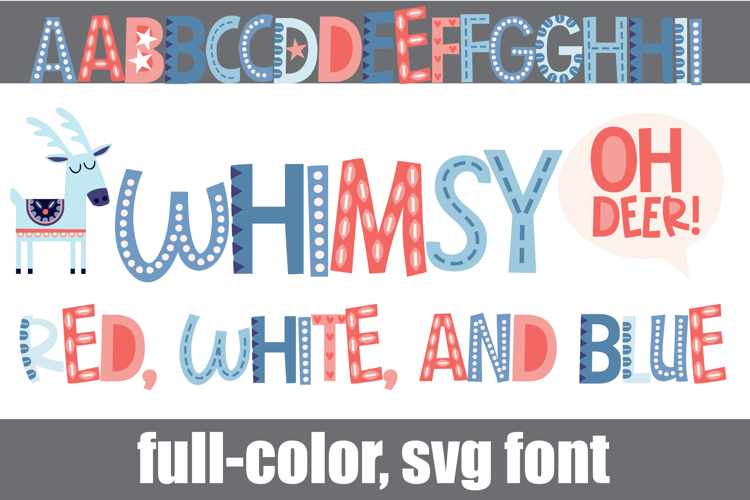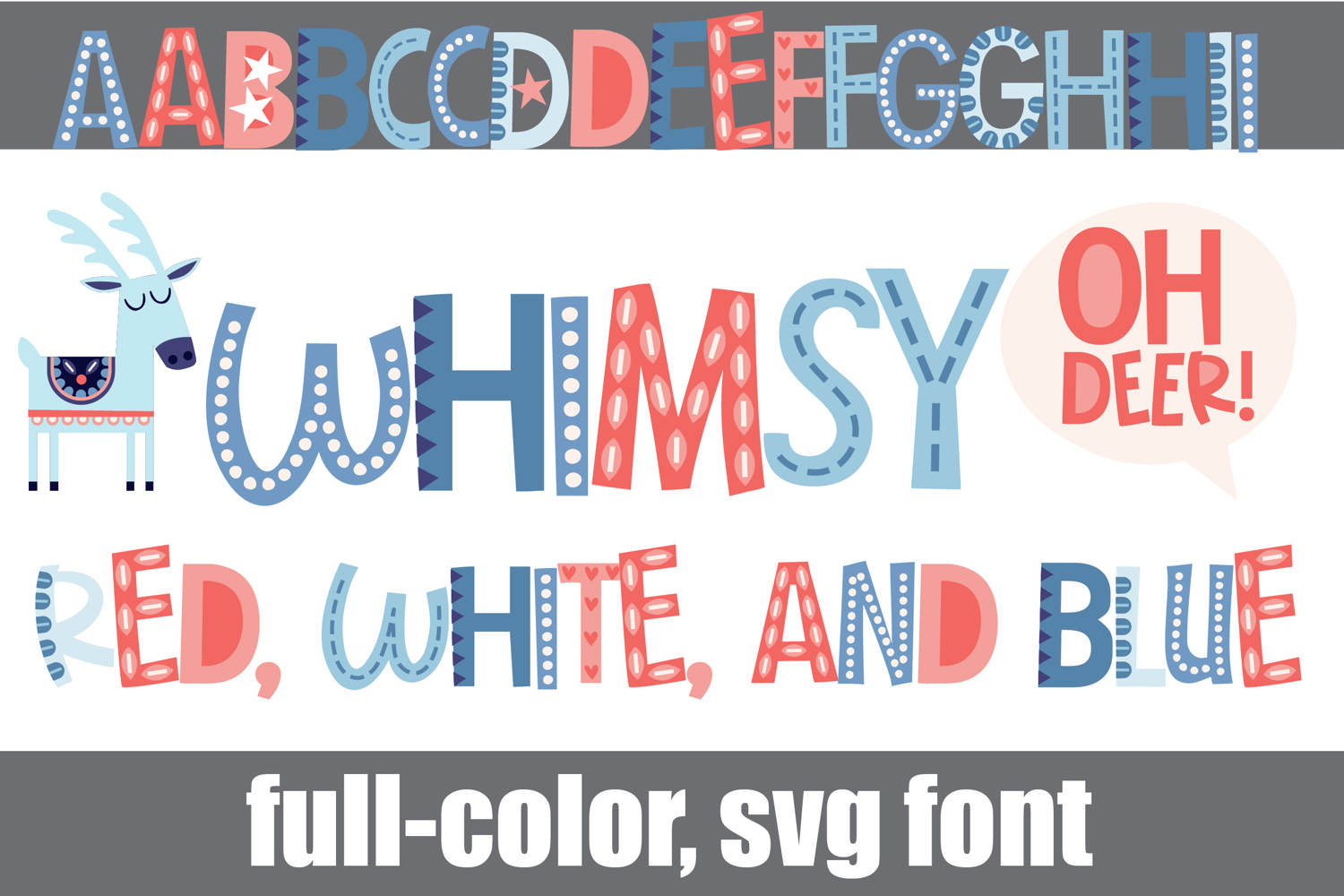
Whimsy Red White and Blue Too Color Font
This full-color, whimsical font is in a pastel patriotic color palette. There is an alt case of additional colors of each letter that you can access through your system's character map. Type the following glyphs for whimsy animals: :,;,<,>, [,],^